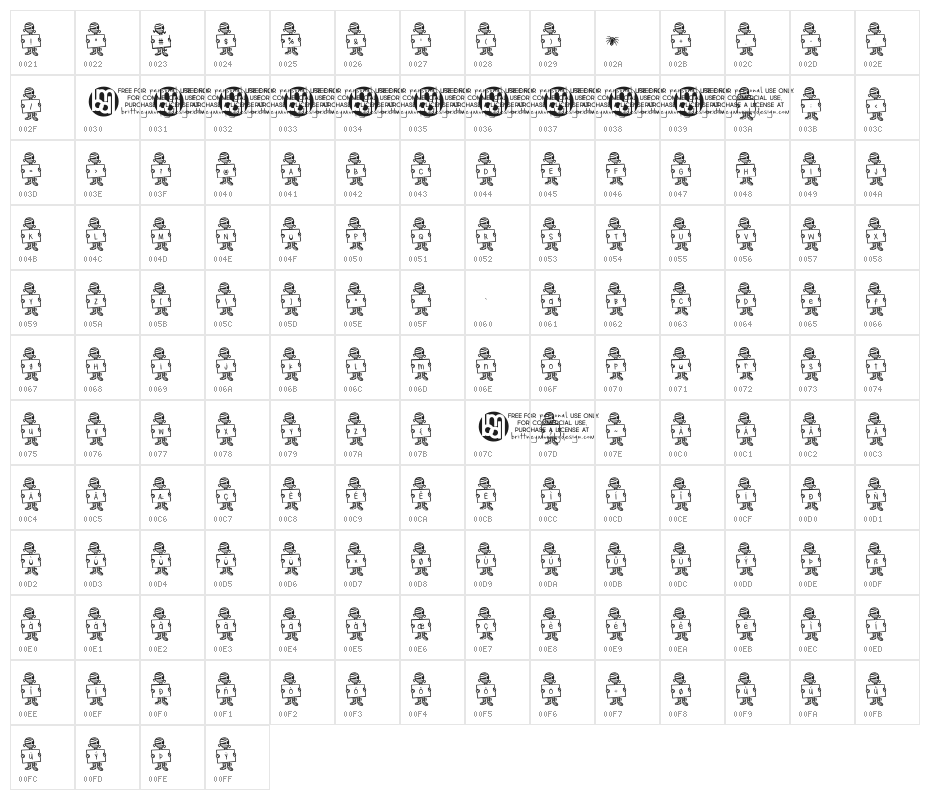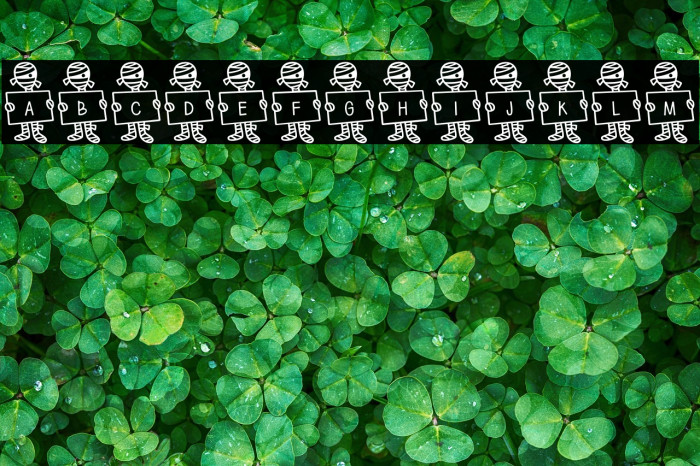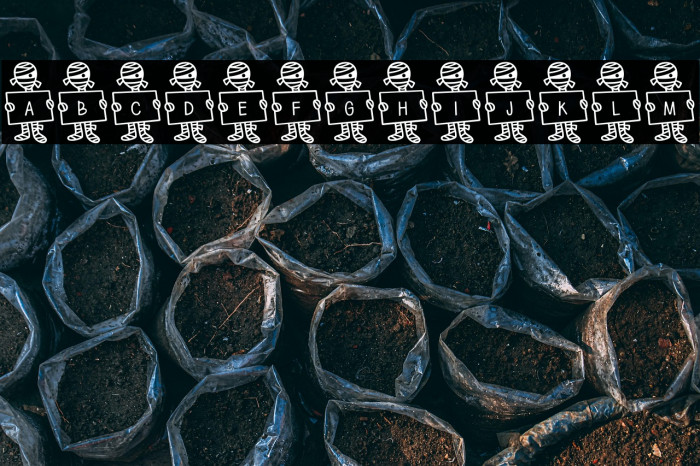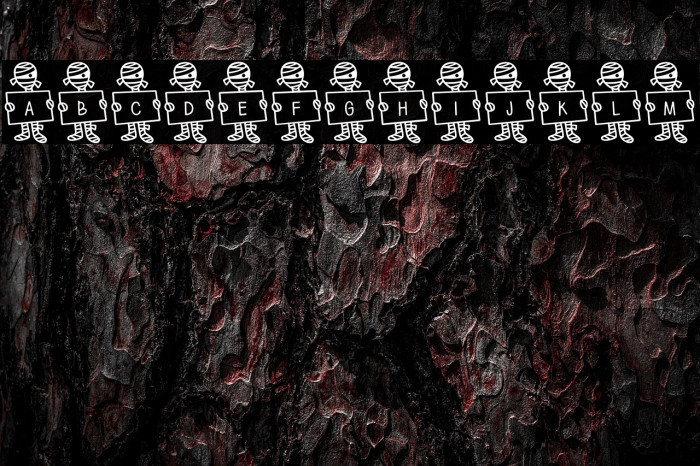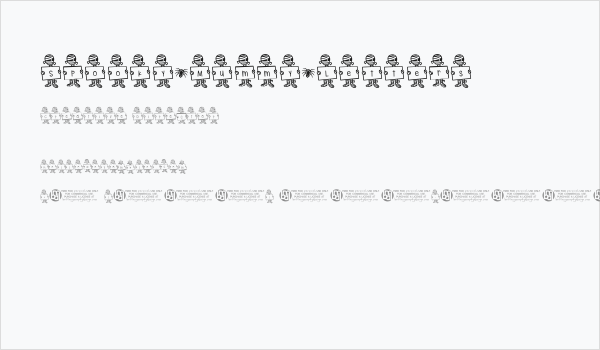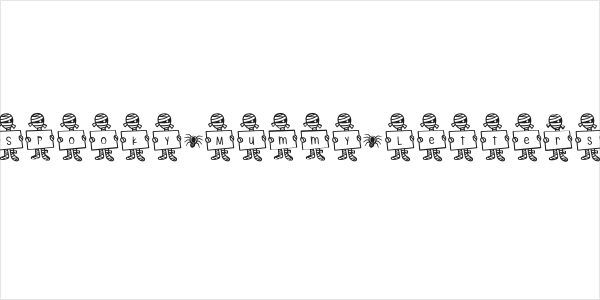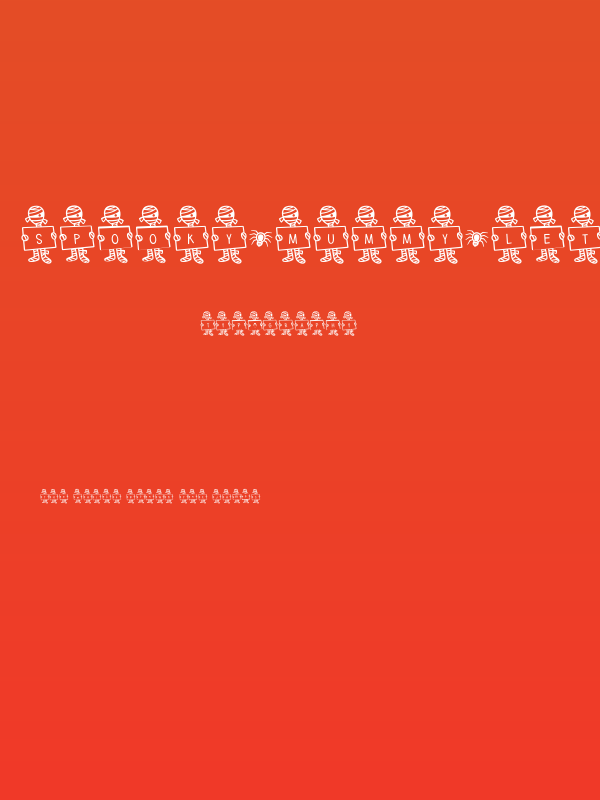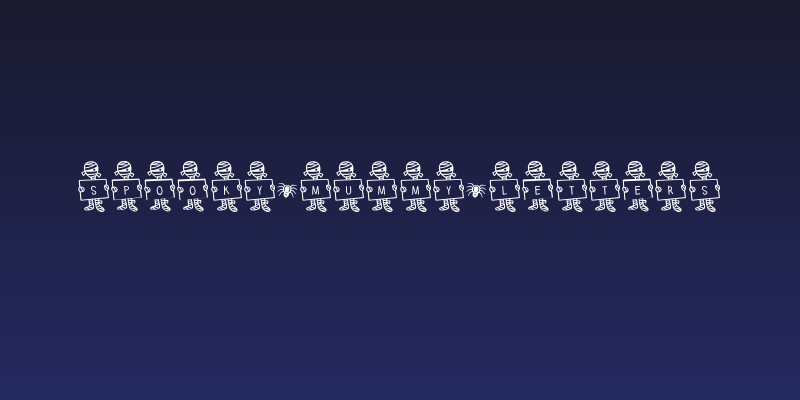
Spooky*Mummy*Letters Font
Spooky*Mummy*Letters Description
This playful and thematic font features letters and characters held by cartoonish mummy figures, adding a whimsical and spooky touch. Each character is encased in a rectangular sign held by a mummy, creating a unique and engaging visual style. The font is perfect for Halloween-themed projects or any design that requires a fun and eerie atmosphere. The characters are bold and easily readable, making them suitable for various creative applications. The design cleverly combines the spooky theme with a light-hearted approach, making it appealing for both children and adults.
Use CaseHeadlines, Logos, Themed Events
Proposed ProjectsIdeal for Halloween invitations, themed party decorations, children's books, and playful branding.